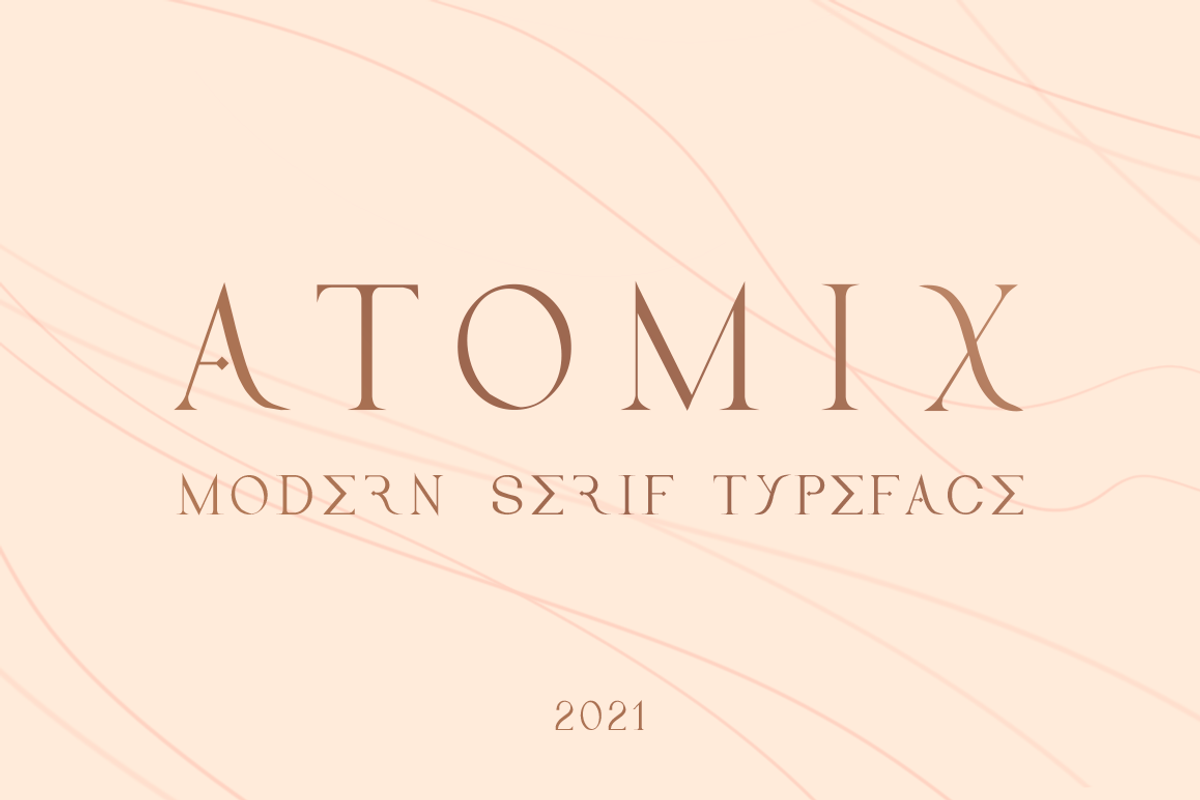
Atomix Modern Serif Typeface Free Download
Atomix Modern Serif Typeface Free Download is a sleek and stylish font that fuses classic serif elegance with a bold, contemporary edge. Perfect for high-end branding, editorial designs, website headers, fashion lookbooks, and luxury product packaging, Atomix brings sophistication and modernity into perfect balance.
With sharp contrasts, clean lines, and unique character details, Atomix commands attention while maintaining refined readability. It’s ideal for designers seeking to create a timeless yet trendy visual identity. From minimalist layouts to bold headlines, this font adapts effortlessly to both print and digital projects.